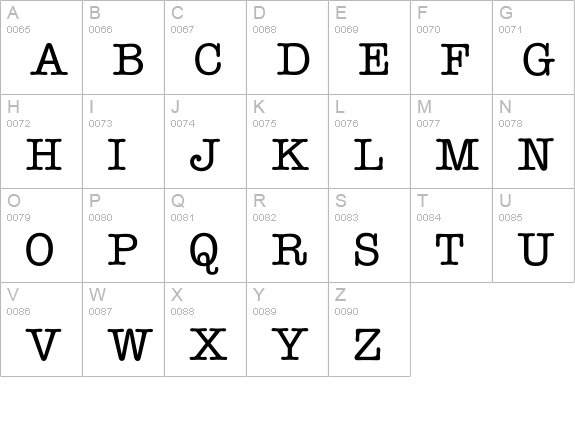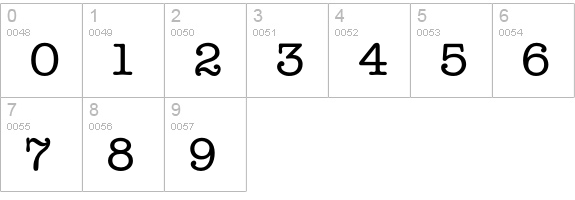
AmericanTypeMedium font is a versatile and classic typeface that exudes elegance and sophistication. With its balanced proportions and clean lines, this font is perfect for a wide range of design projects, from editorial layouts to branding materials. The timeless appeal of AmericanTypeMedium font makes it a popular choice for designers looking to convey a sense of tradition and professionalism. What sets AmericanTypeMedium font apart is that it is available for free download at FontsMarket.com. This means that you can easily access this high-quality typeface without breaking the bank. Whether you are a seasoned designer or just starting out, AmericanTypeMedium font offers a reliable and stylish option for your typography needs. Download it today and elevate your designs with this timeless and versatile font.